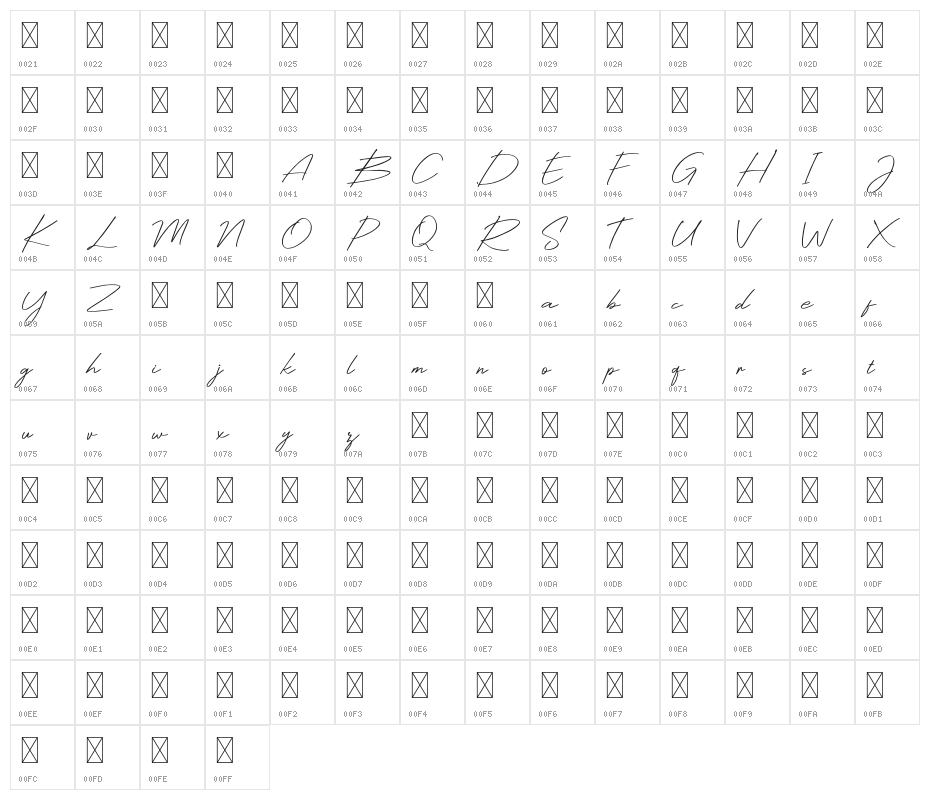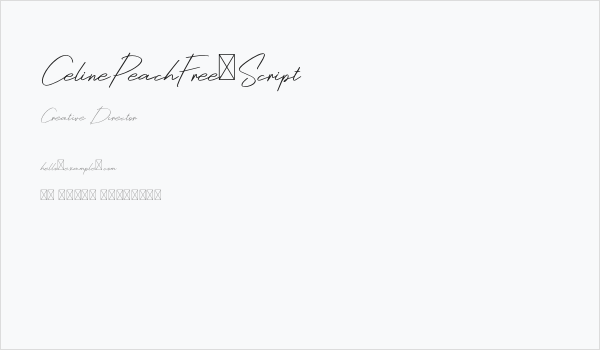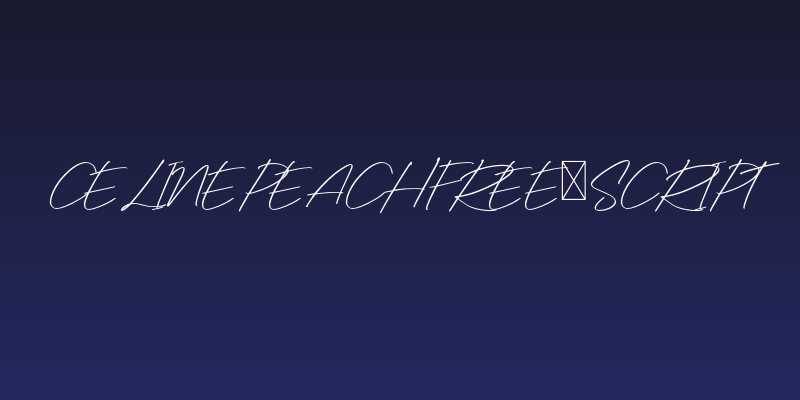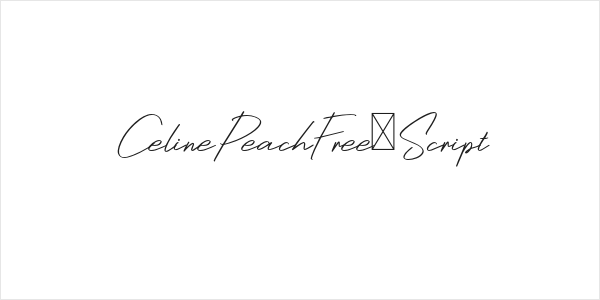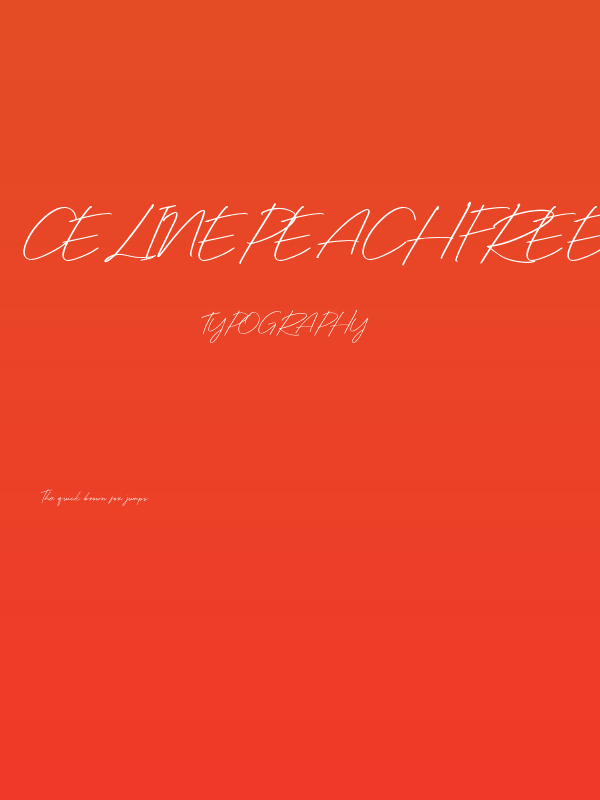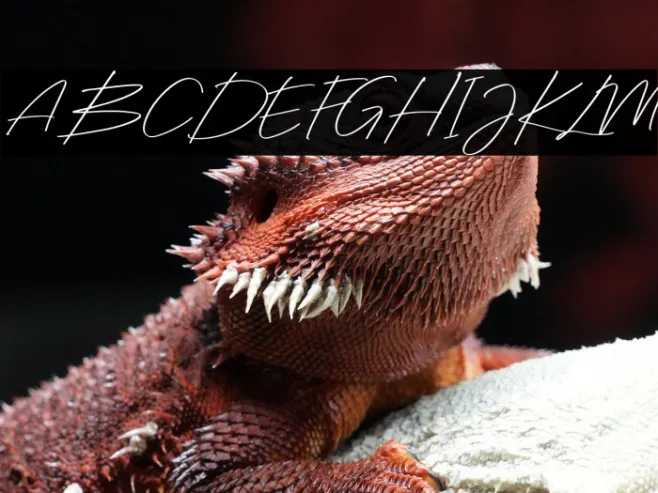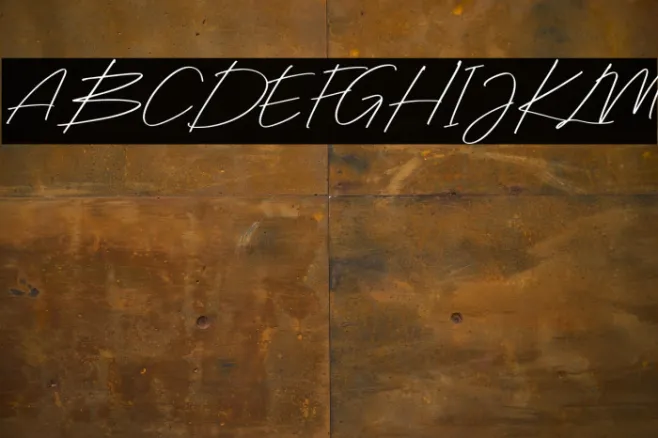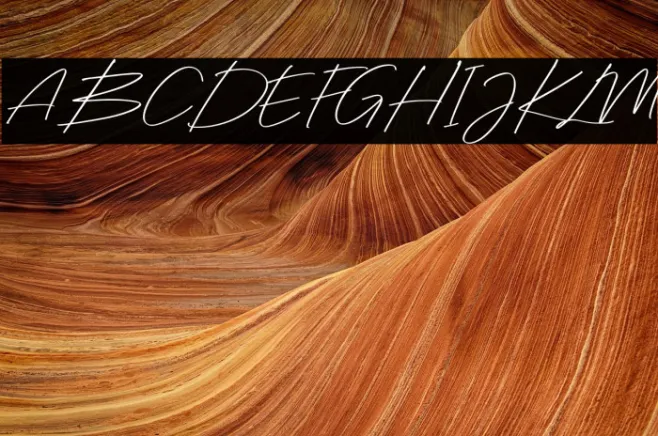
CelinePeachFree-Script Font
CelinePeachFree-Script Description
This font exhibits a fluid and elegant script style, characterized by its smooth, flowing lines and cursive letterforms. The uppercase letters are tall and slender, while the lowercase letters maintain a consistent, graceful curve. The strokes are delicate, with a slight variation in thickness that adds a touch of sophistication. This font conveys a sense of elegance and refinement, making it ideal for projects that require a personal, handwritten touch. The overall appearance is both stylish and approachable, suitable for a variety of creative applications.
| Use Case | Logos, Invitations, Personal correspondence |
| Proposed Projects | Ideal for wedding invitations, greeting cards, branding, and personal stationery. |